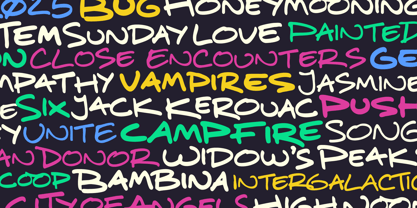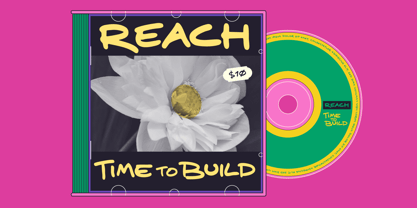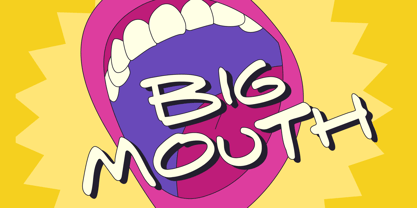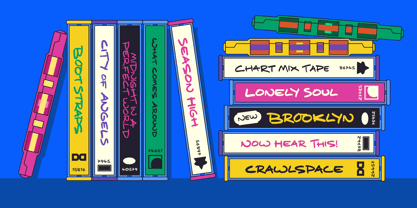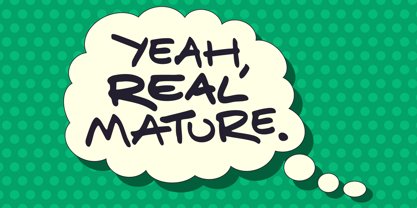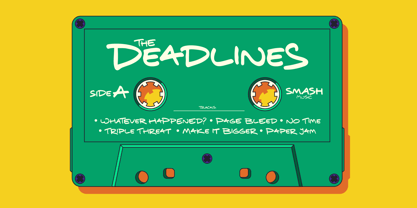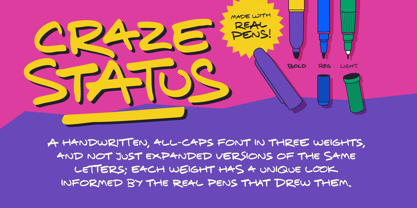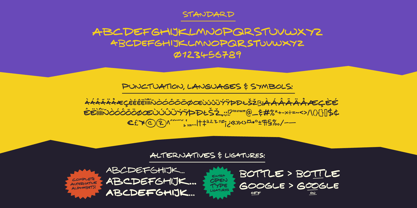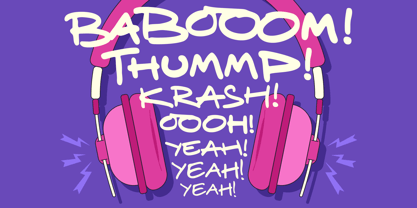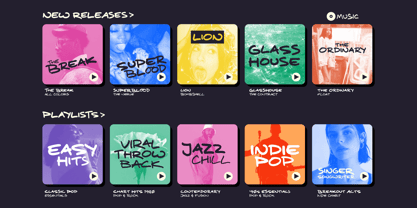
Craze Status
The Craze Status Font Family was designed by Christopher King and published by Wing's Art Studio. Craze Status contains 6 styles and family package options. More about this family
Craze Status is a versatile handwriting font based on a selection of real marker pens, offering three unique weights and an authentic, analogue flair.
Inspired by a broad spectrum of popular culture, this font has a personality that's equally at home in comic books or album covers, music videos, animations and movie titles. Its obvious links to comic book lettering inspired the all-caps design, bringing a looser, freehand flow reminiscent of home-made mix-tapes, or quick messages scribbled on a Post-it note. It's the perfect choice for adding the human touch to your work in an all-digital age.
Craze Status is an all-caps font with unique uppercase and lowercase characters, numerals, and multilingual support, along with light, regular and bold weights. It's worth noting that each weight was written separately, giving them an individual appearance informed by the pen that drew them. They're designed to complement each other and provide a truly analogue look. In addition, each weight comes with complete alternative alphabets and numerals, plus switchable Open Type ligatures for the 'oo's and tt's, to further enhance the look.
Christopher King (aka Wingsart Studio) is a Graphic Designer specialising in hand-drawn lettering for film and television titles. From blockbuster films to indie press, Wingsart Studio fonts have appeared on screens big and small around the globe. His work has been used by companies including Disney, Marvel, Apple, Netflix and Paramount Studios.The Wingsart Studio philosophy is to embrace the imperfections inherent with real pens, pencils, paper and brush. In counter-balance to an AI driven age, these fonts remain refreshingly analogue and proud of their human touch. Before a single letter turns into a digital product, countless hours are spent researching and sketching out ideas in pursuit of those perfect lines and shapes.